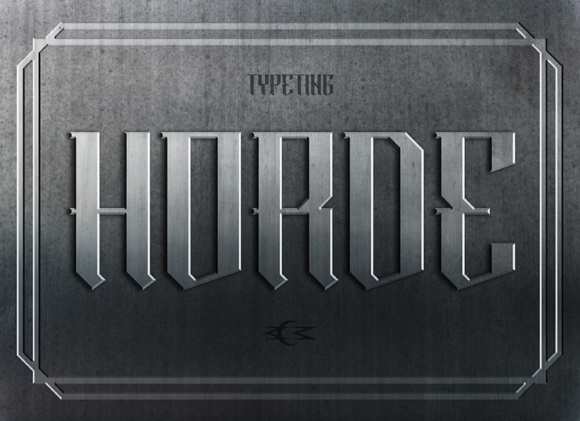
Introducing Horde Font, the ultimate blackletter display font, meticulously crafted by Typeting Studio to bring a modern, strong, and elegant touch to your creative projects. Step into a world of captivating designs where Horde Font takes center stage, enhancing your projects with its distinctive charm.
Immerse yourself in the Horde Font experience and discover a font that not only elevates your designs but also captivates your audience with its undeniable allure. Each letterform is carefully designed to strike a balance between classic blackletter aesthetics and contemporary appeal. With Horde Font, you'll create designs that resonate with power, boldness, and timeless beauty.
Whether you're designing logos, posters, branding materials, or social media graphics, Horde Font adds a touch of sophistication and distinction. Its strong and elegant presence commands attention, leaving a lasting impression on your audience. Unleash your creativity and explore the endless possibilities that await you with Horde Font.
More than just a font, Horde Font is an artistic expression that breathes life into your designs. Its modern interpretation of the blackletter style makes it a versatile choice for creating designs that stand out from the crowd. Embrace the power of Horde Font and unlock your creative potential, transforming your projects into masterpieces that captivate and inspire.
Elevate your design game with Horde Font and experience the difference a truly exceptional font can make. Its striking appearance and unwavering elegance will leave an unforgettable mark on your audience, ensuring that your designs convey the message of strength, confidence, and timeless appeal. Don't settle for ordinary fonts - choose Horde Font and unleash the extraordinary in your creative endeavors.